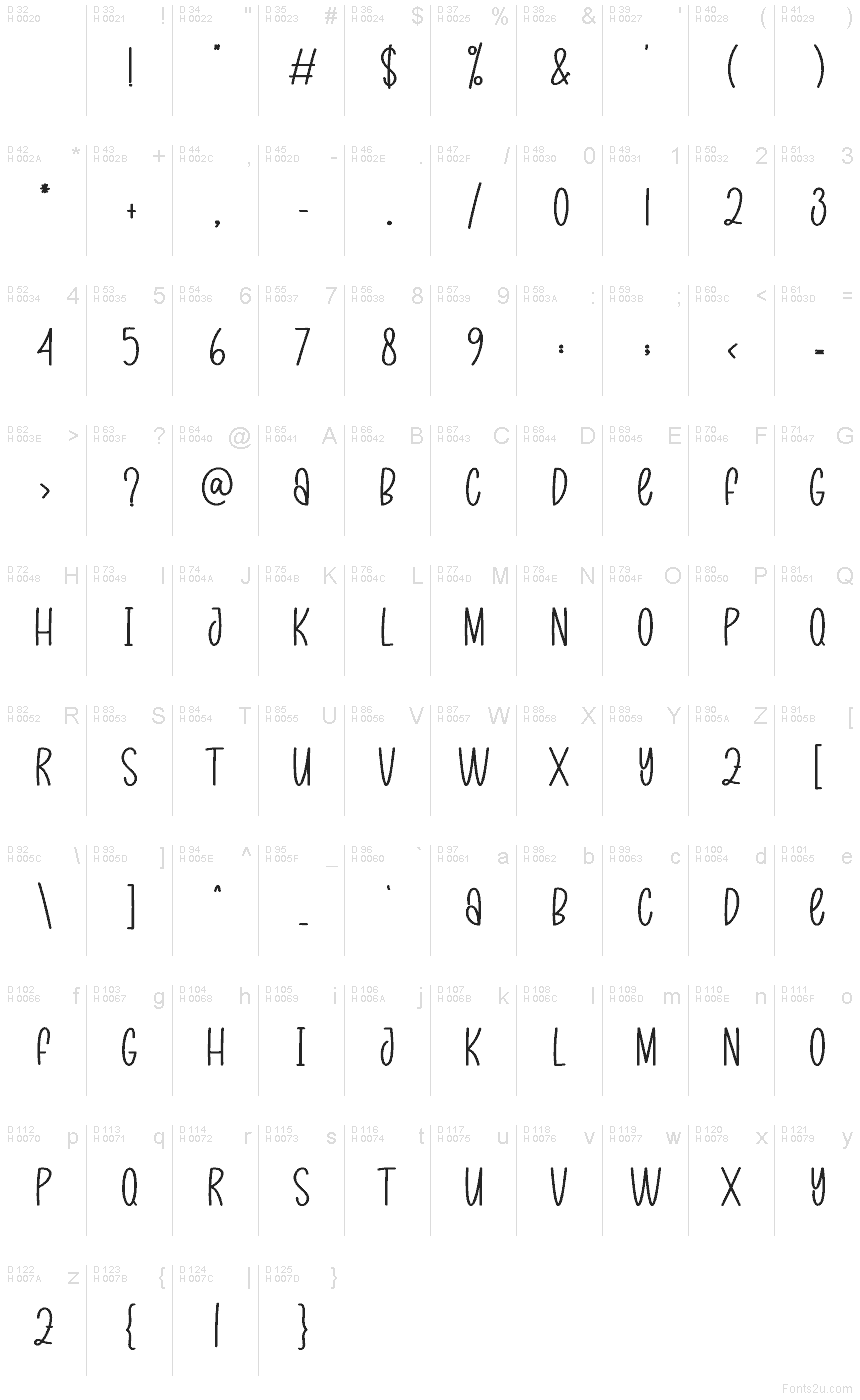
Funny Christmas
Funny Christmas font is a condensed brush typeface designed by Andi Moz. Its whimsical and expressive style brings a contemporary decorative touch to any design. Joyful and festive in nature, this free brush font is set to create visually stunning texts by conveying an artistic handwriting flair that draws everyone’s attention.
Use it for invitations, Christmas cards, prints, gift tags, headings, social media graphics, branding designs, visual identity components, packaging designs, wrapping papers or even picture captions!